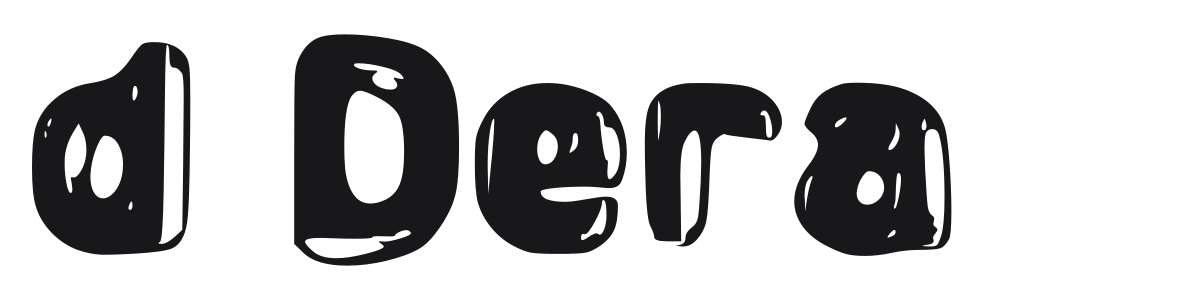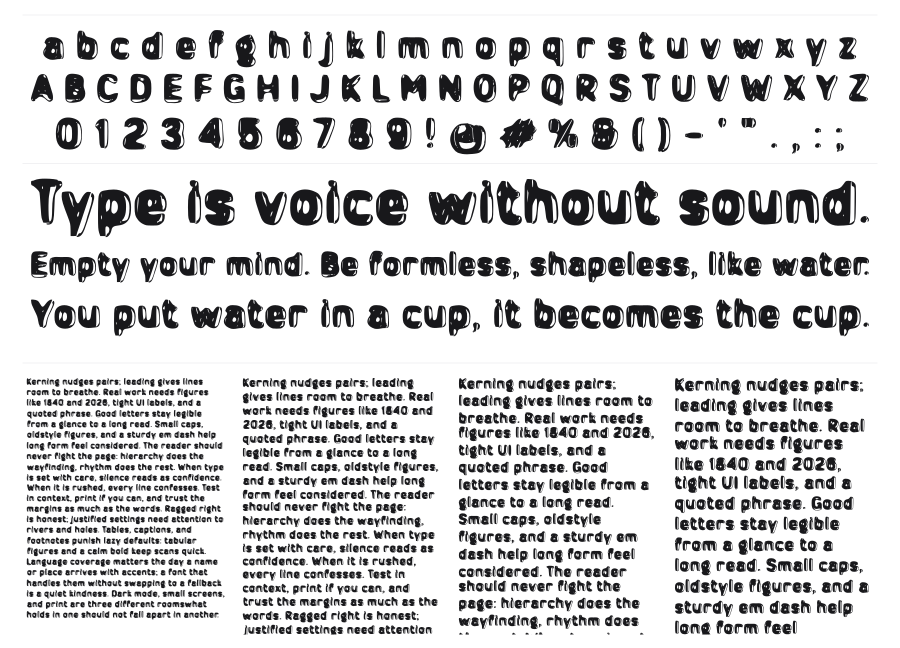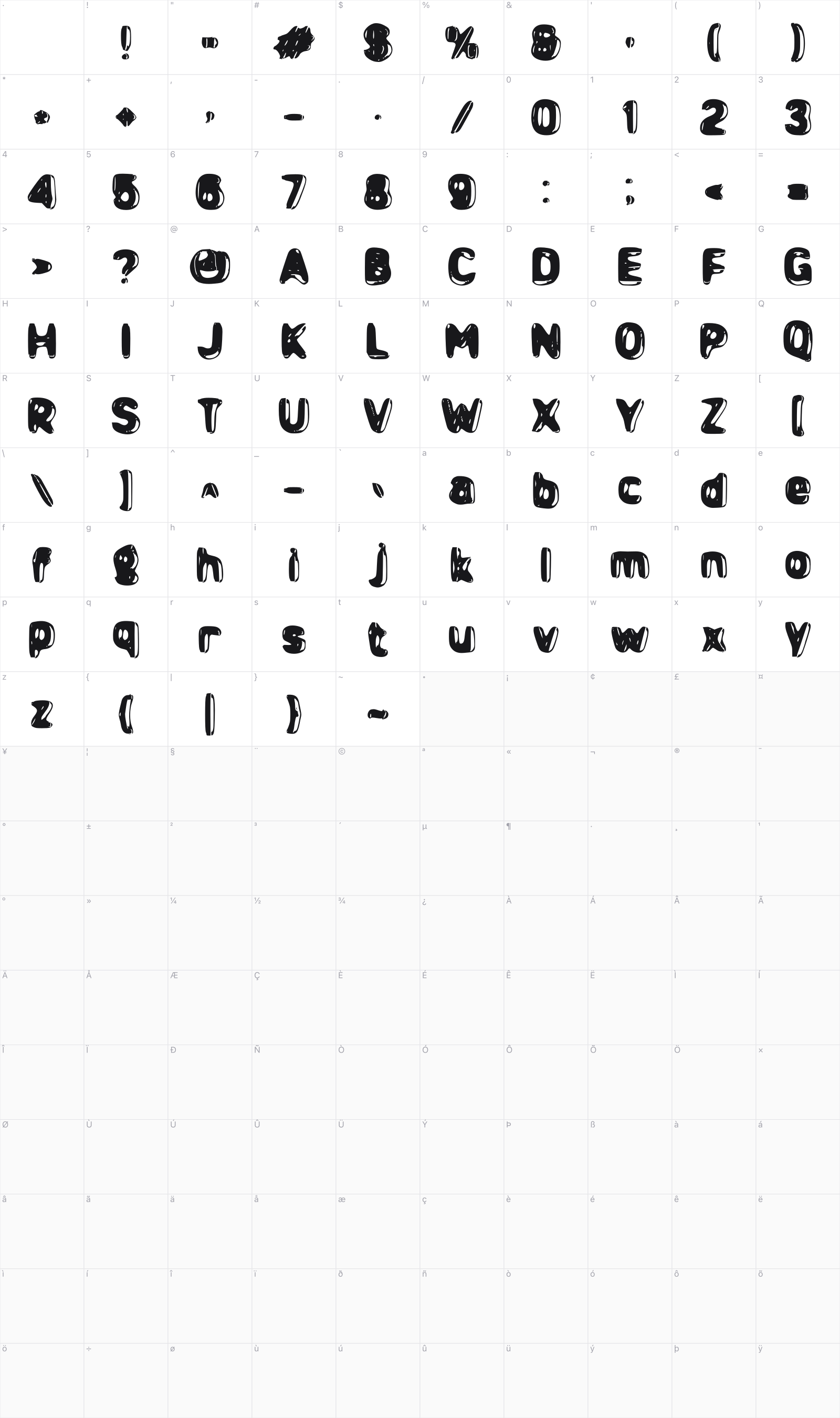
d Dera
d Dera is a heavy, distressed display font built on rounded, balloon-like forms that look dragged through ink or half-melted. The irregular outlines and dense mass create a tension between playful roundness and grungy texture. It suits loud headlines in music, horror, street culture, and youth-facing branding.